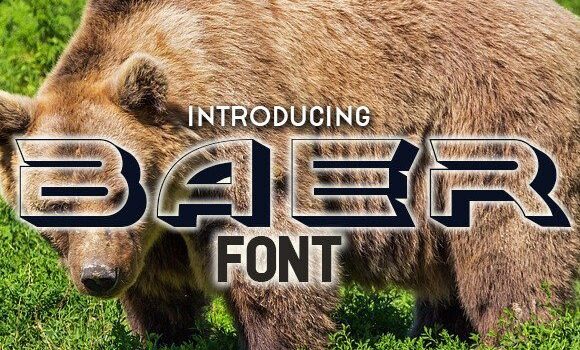
baer
Baer Font – Free Download Introduction to Baer Font Baer is a bold 3D font with a retro touch. 📸 Preview Gallery 2 images 📌 Product Name Baer Font 👤 Author vladimirnikolic 📂 Category Explore ⬇️ Download Baer Font FREE